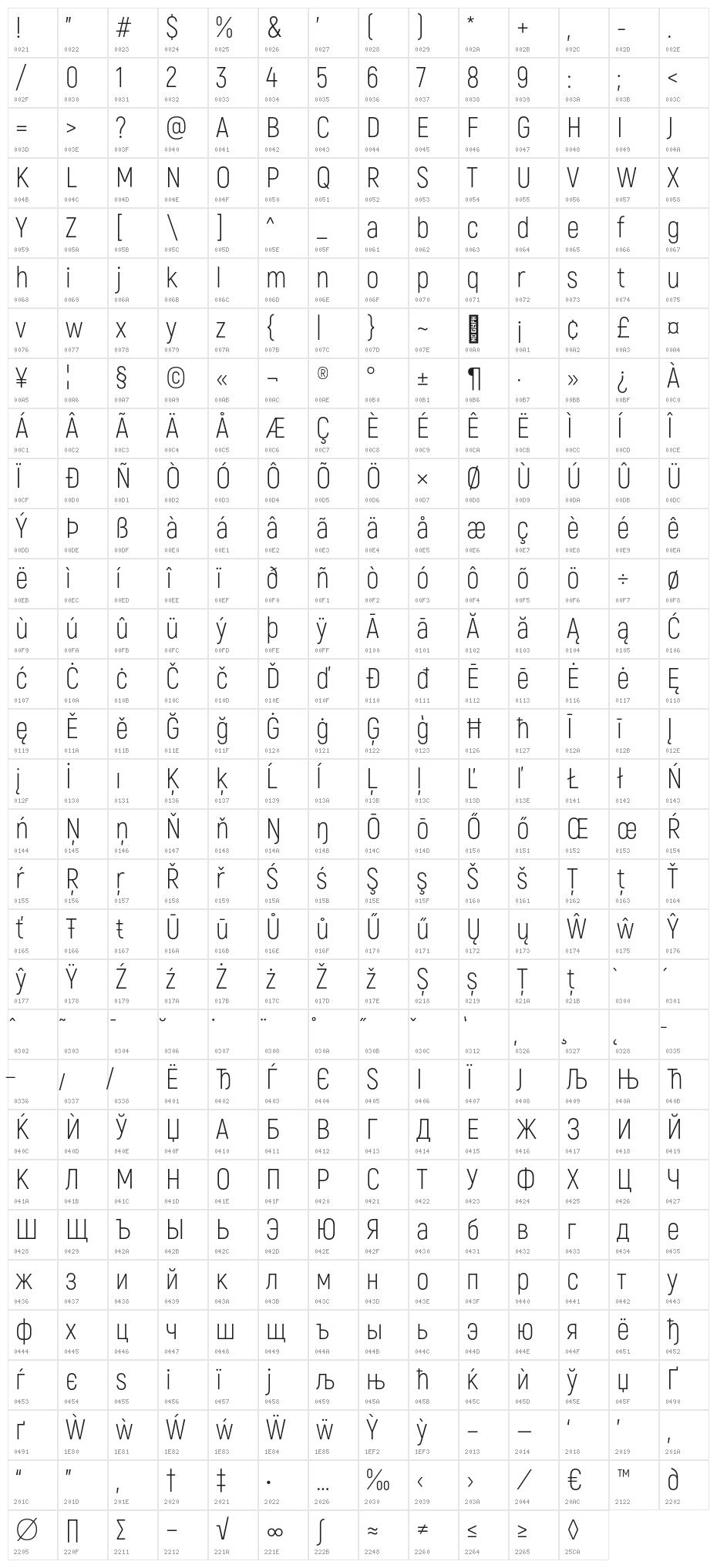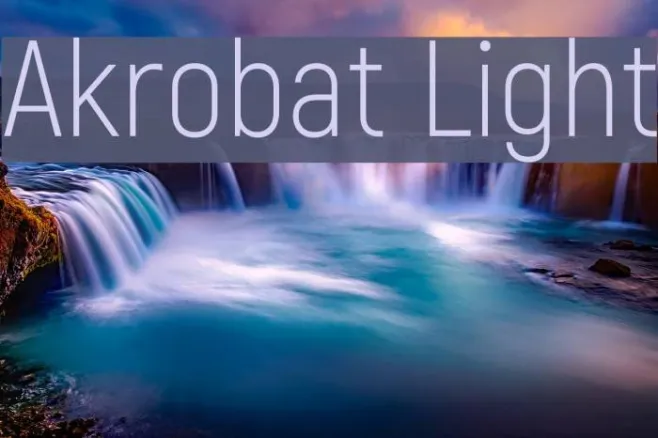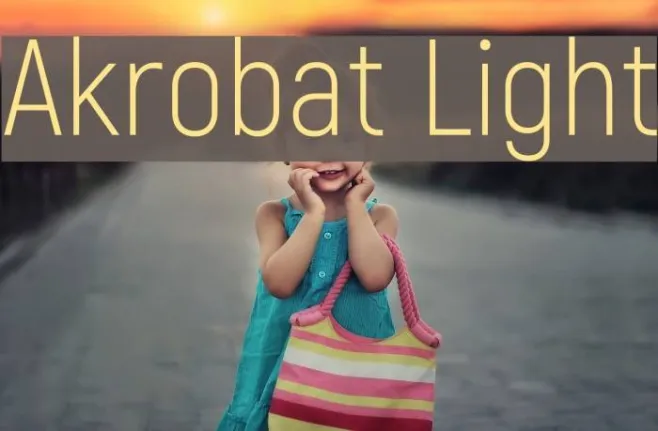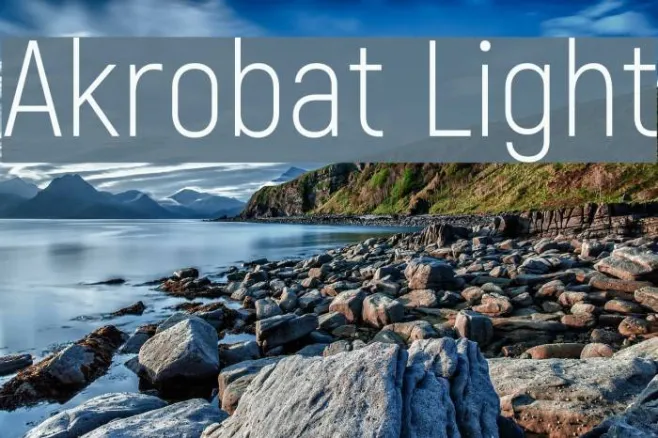
Akrobat Light Font
Akrobat Light Description
This font features a clean and modern sans-serif design with a geometric structure. The characters are tall and narrow, giving it a sleek and elegant appearance. The strokes are consistent in width, providing a uniform look across all characters. The uppercase letters are slightly taller than the lowercase, maintaining a balanced proportion. The numerals are clear and easy to read, while the special characters are well-integrated into the overall design. This font's simplicity and clarity make it versatile for various design applications.